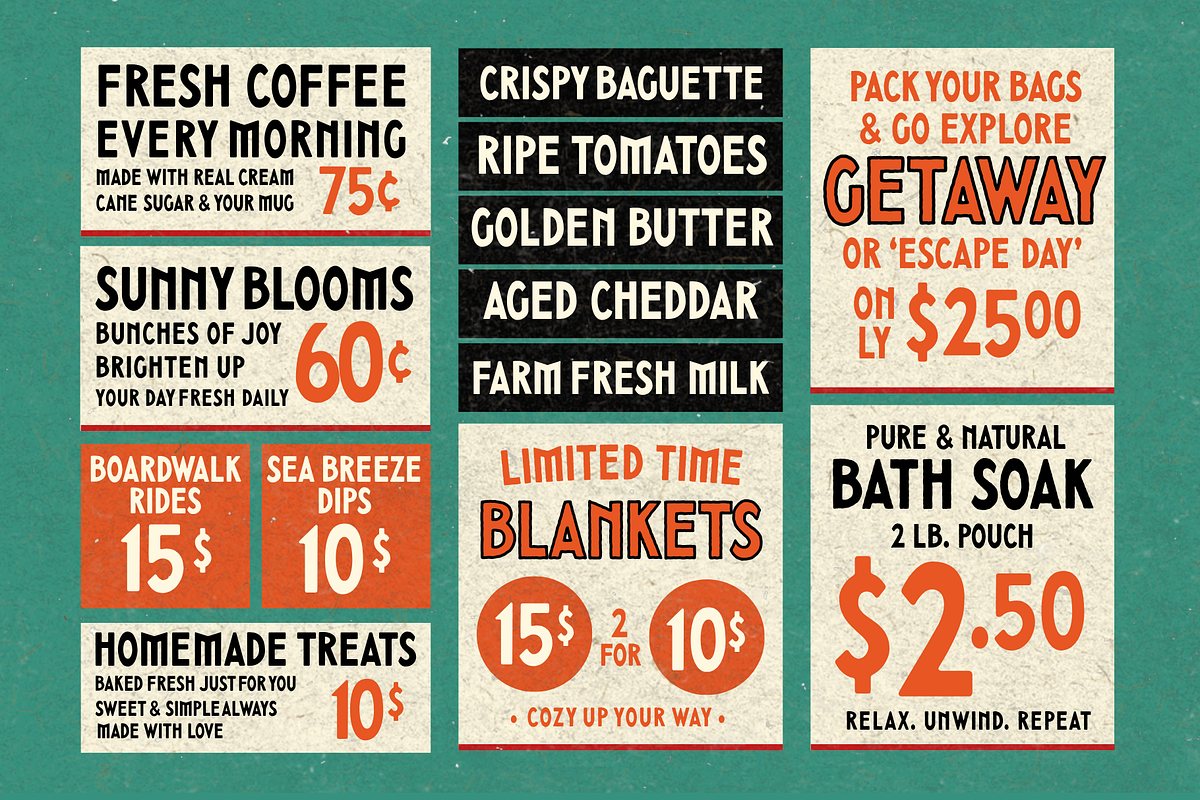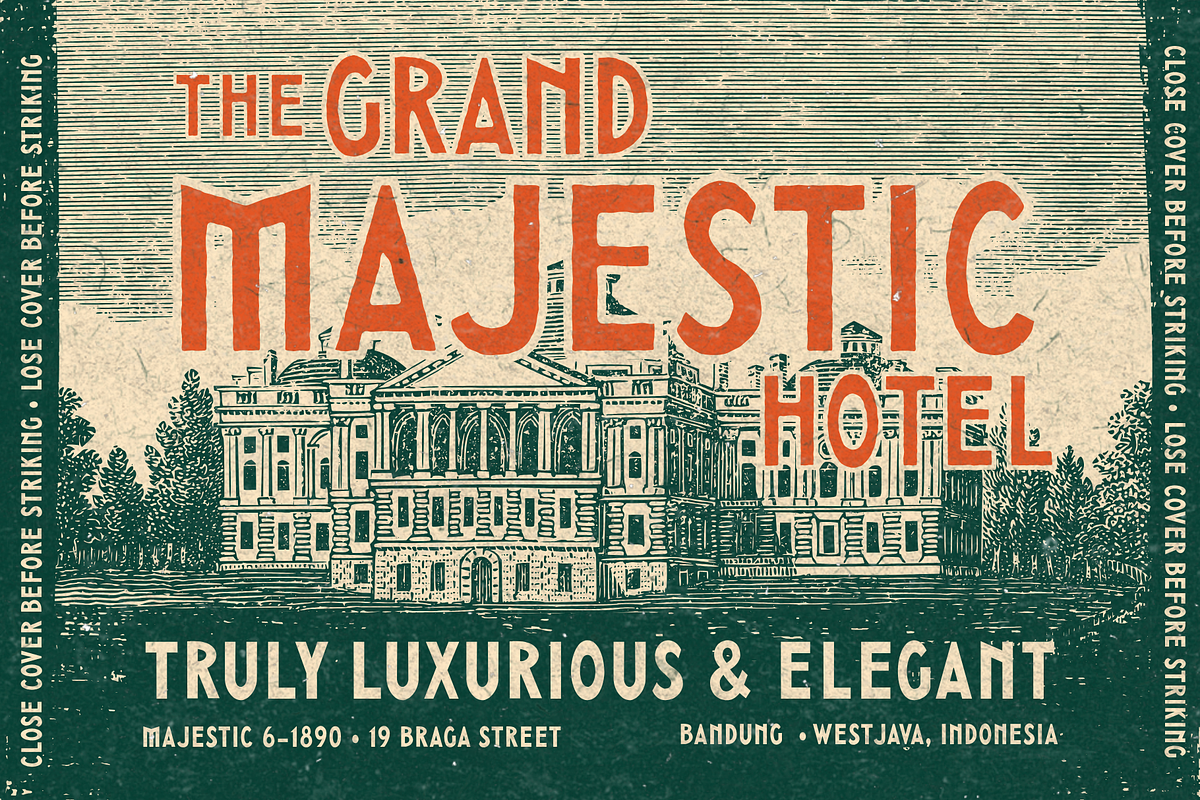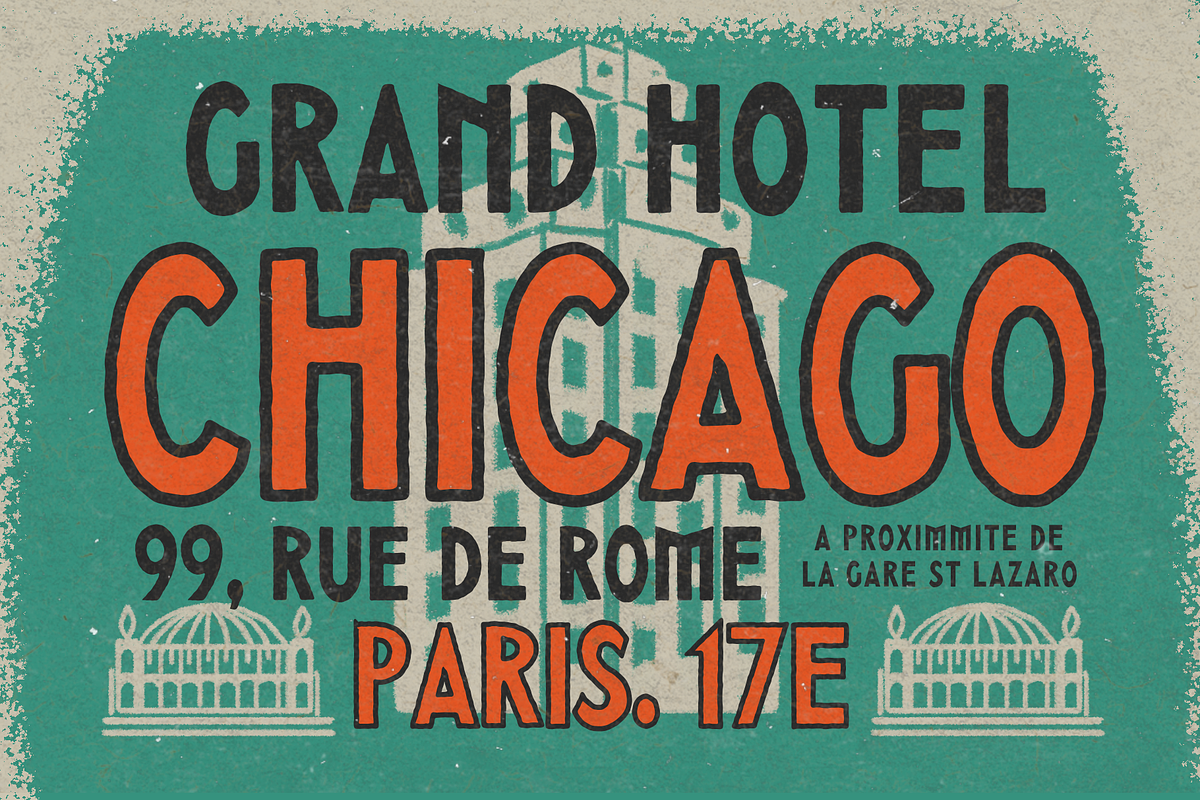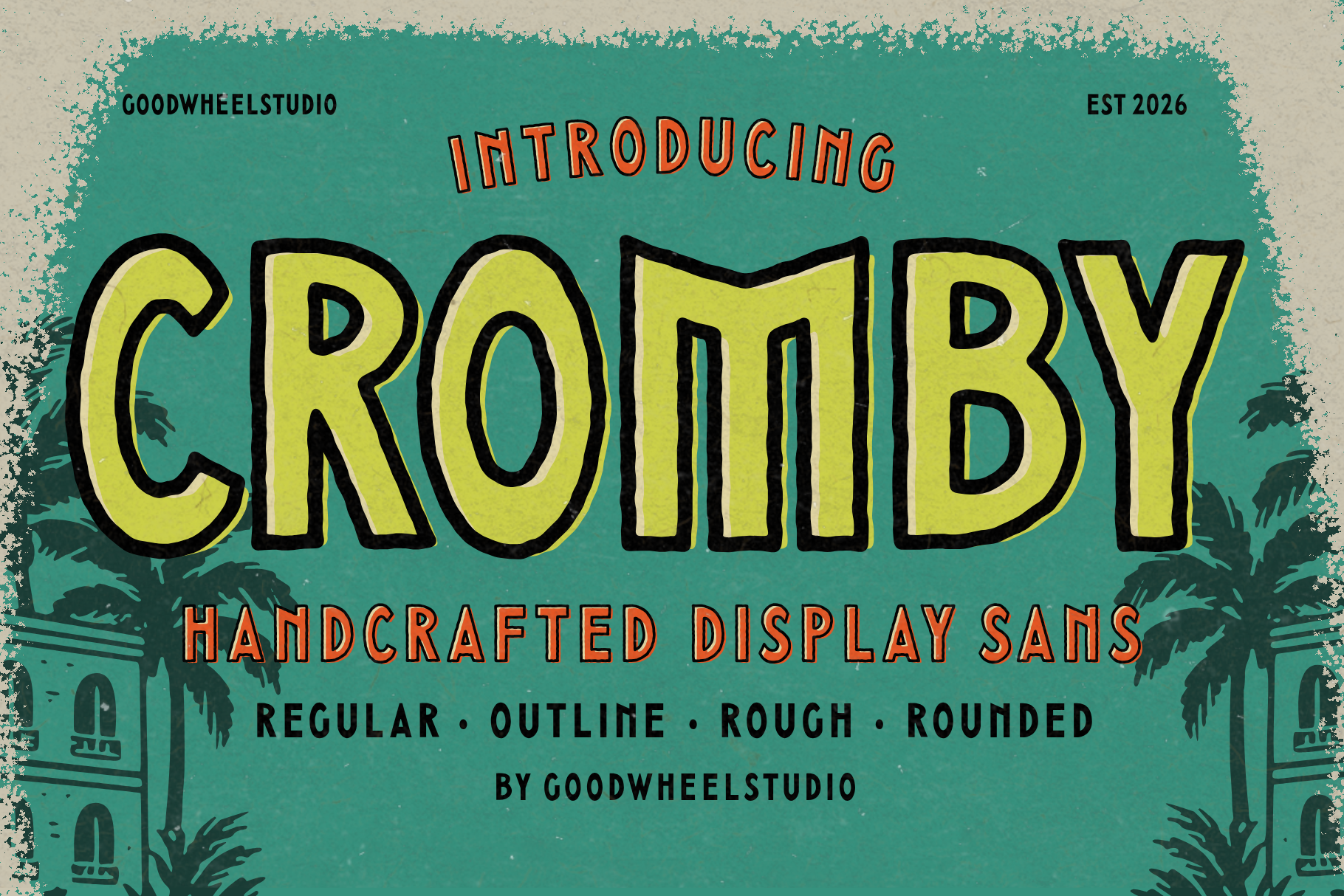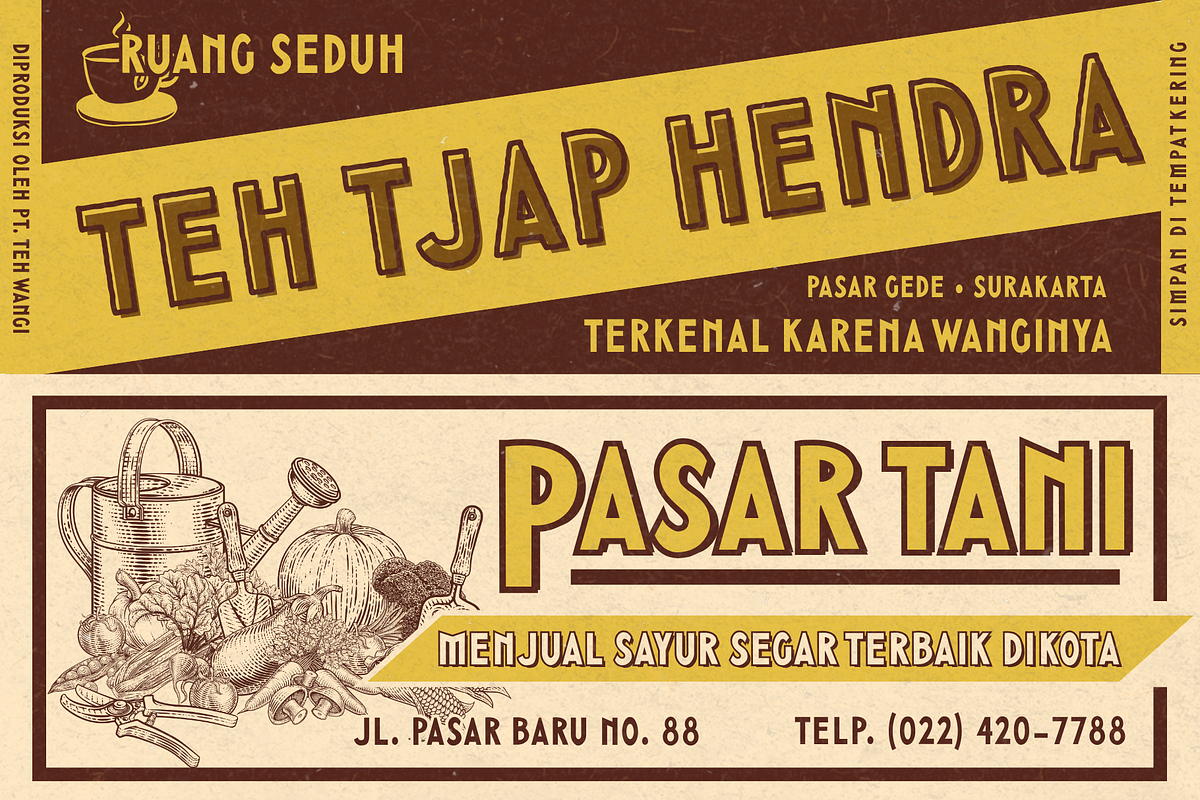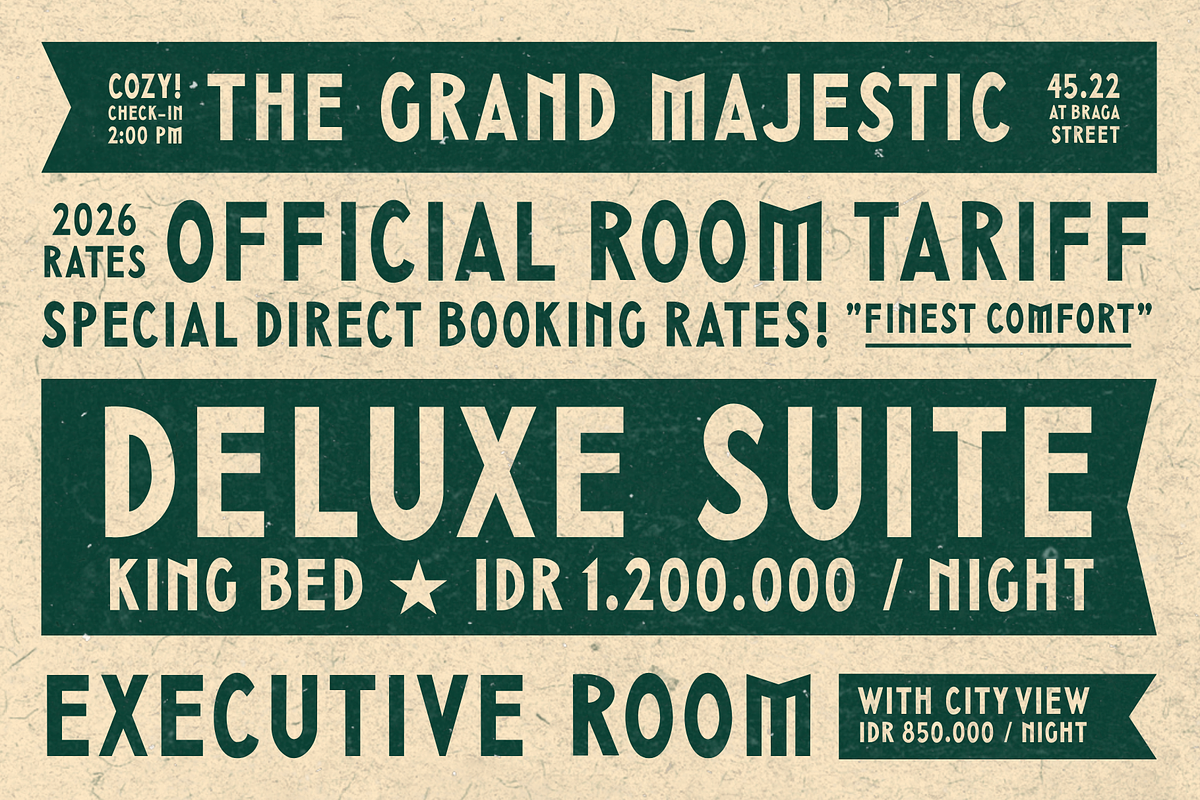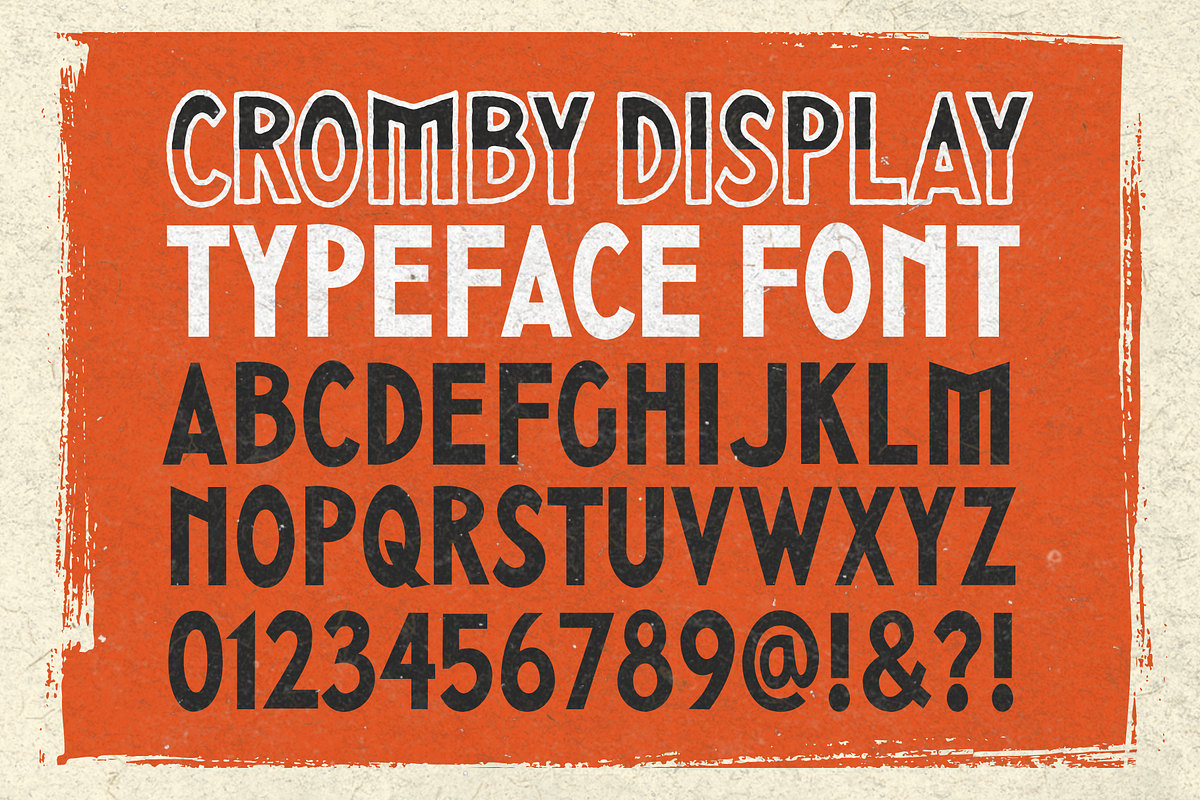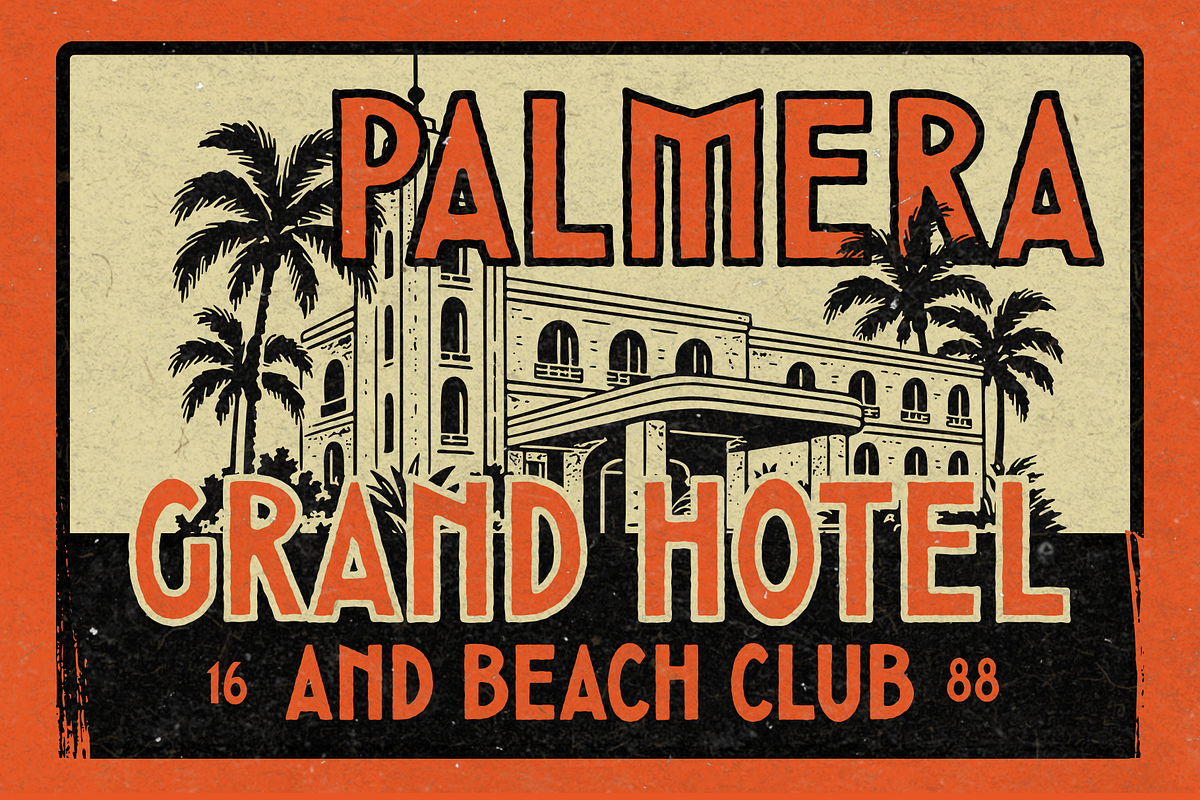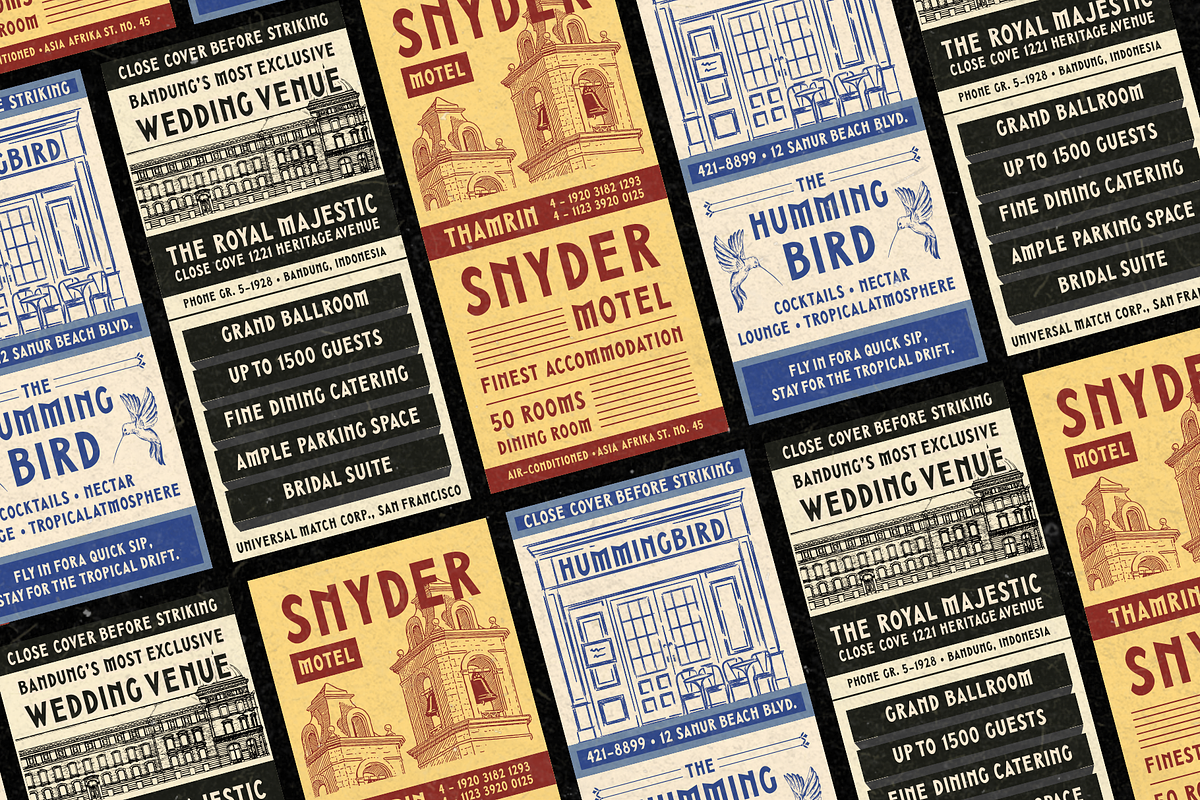
Cromby | Handwriten Typeface
Cromby is a bold condensed display typeface inspired by vintage posters, industrial signage, and classic advertising typography. Its strong geometric construction, distinctive angled details, and compact proportions create a powerful retro personality with an unmistakable visual impact. Designed to command attention, Cromby works beautifully for posters, headlines, logos, packaging, labels, apparel, editorial layouts, and branding projects. The typeface combines rugged character with clean, solid forms, making it versatile for both vintage-inspired and contemporary designs. With uppercase letters, numerals, punctuation, and essential symbols, Cromby provides everything you need to create striking typography that feels authentic, bold, energetic, and timeless across creative applications.